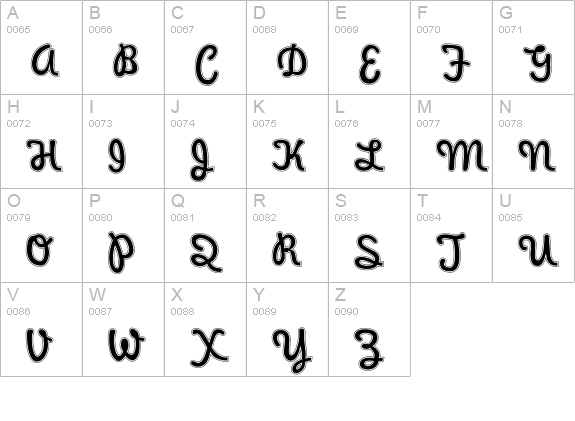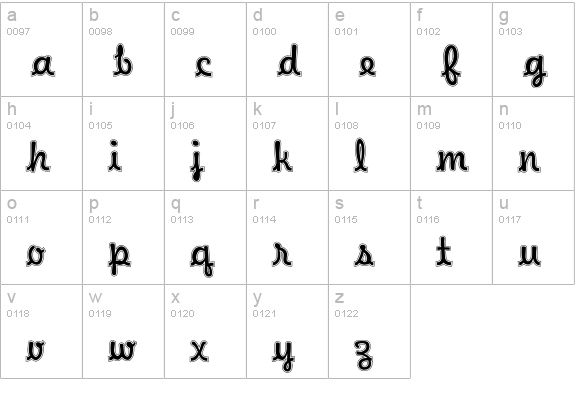
WaveeWeekend-Double Font Details
Introducing WaveeWeekend-Double, a captivating and dynamic font that will breathe life into your design projects. This unique typeface exudes a sense of energy and playfulness, making it perfect for a wide range of creative endeavors. With its bold and curvaceous letterforms, WaveeWeekend-Double commands attention and adds a touch of excitement to any design. Whether you're working on a logo, branding, advertising, or even a poster, this font will effortlessly elevate your creations to new heights. But what sets WaveeWeekend-Double apart from the rest is its incredible versatility. It can seamlessly transition from a fun and lighthearted style to a more sophisticated and modern look, making it suitable for a variety of projects and industries. And the best part? WaveeWeekend-Double is completely free! Yes, you read that right. This stunning font is available for you to download and use at no cost. Simply head over to FontsMarket.com, and you'll have access to this incredible typeface in just a few clicks. So why wait? Unleash your creativity and let WaveeWeekend-Double be the driving force behind your next design masterpiece. Download it now and watch your projects come alive with its captivating charm.